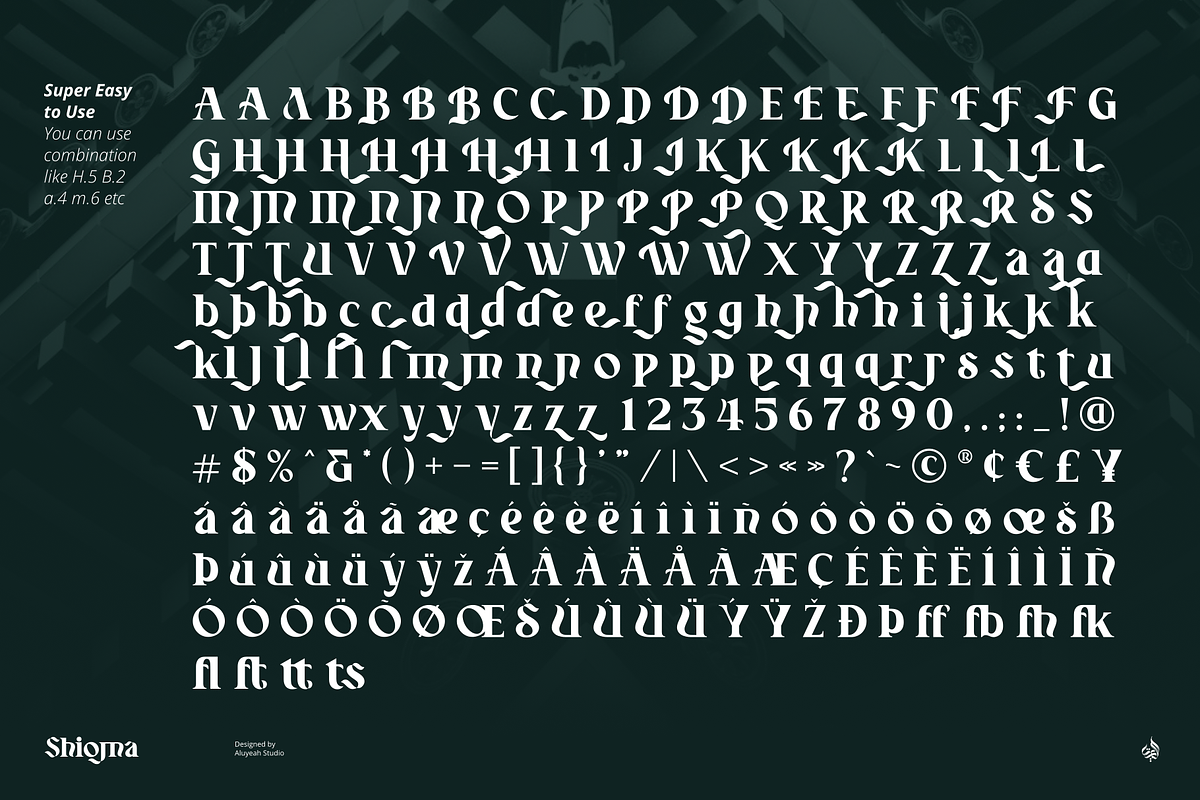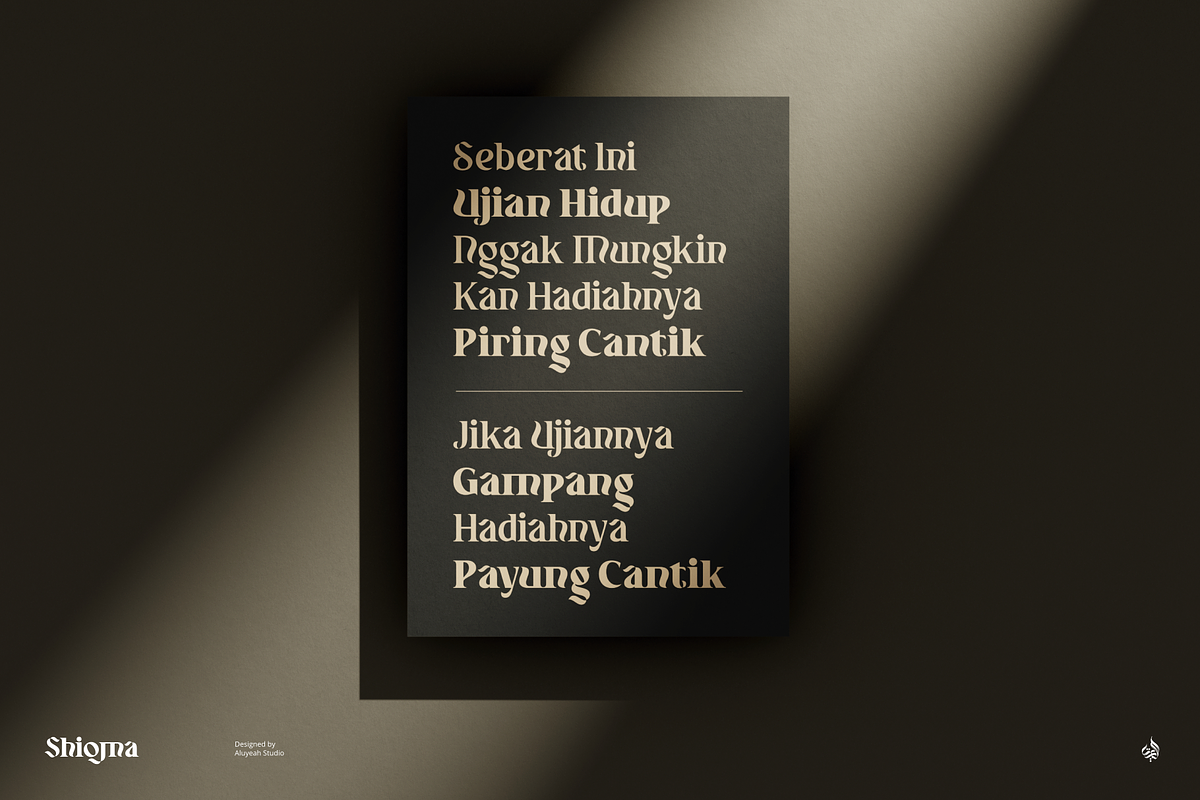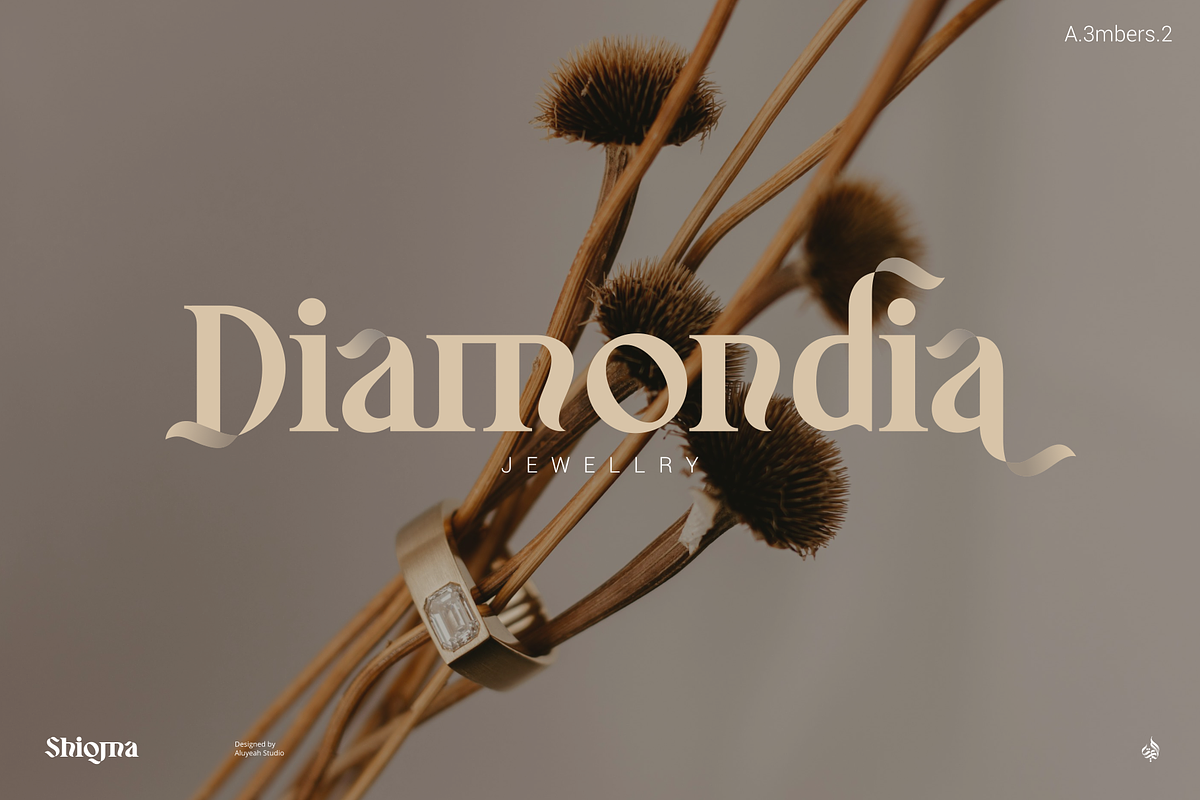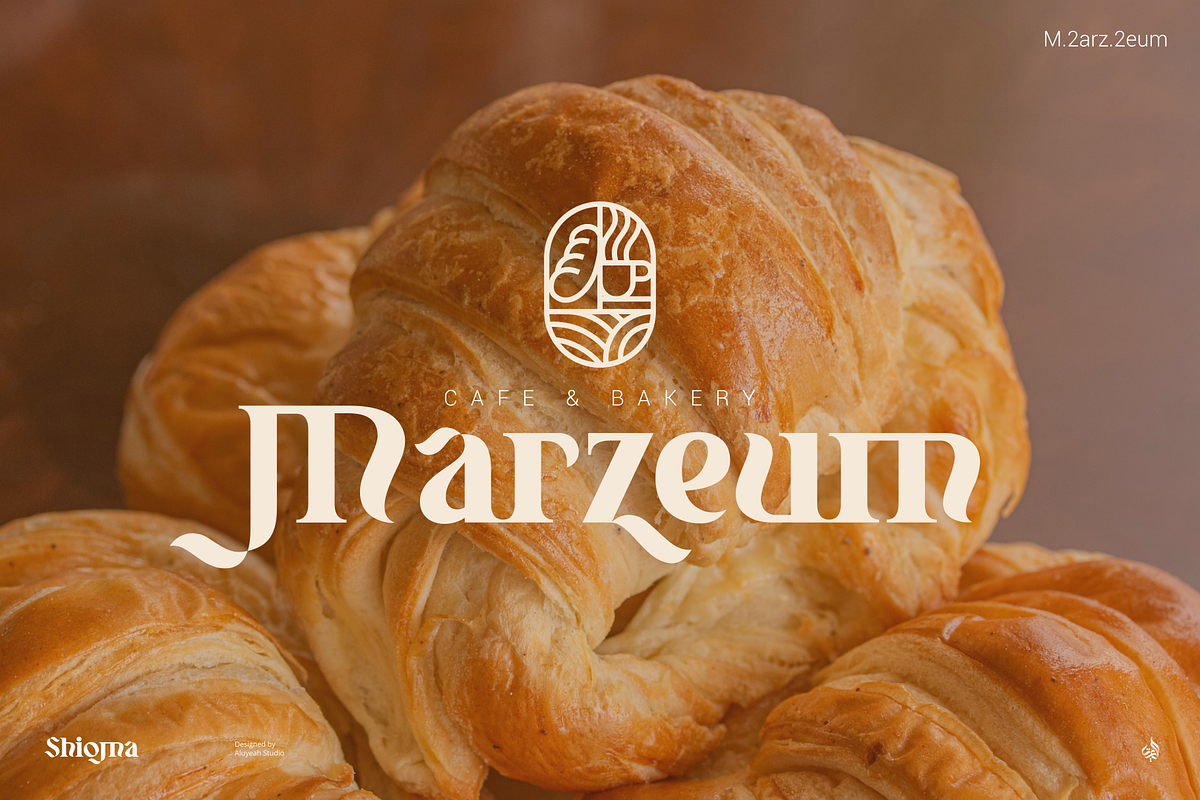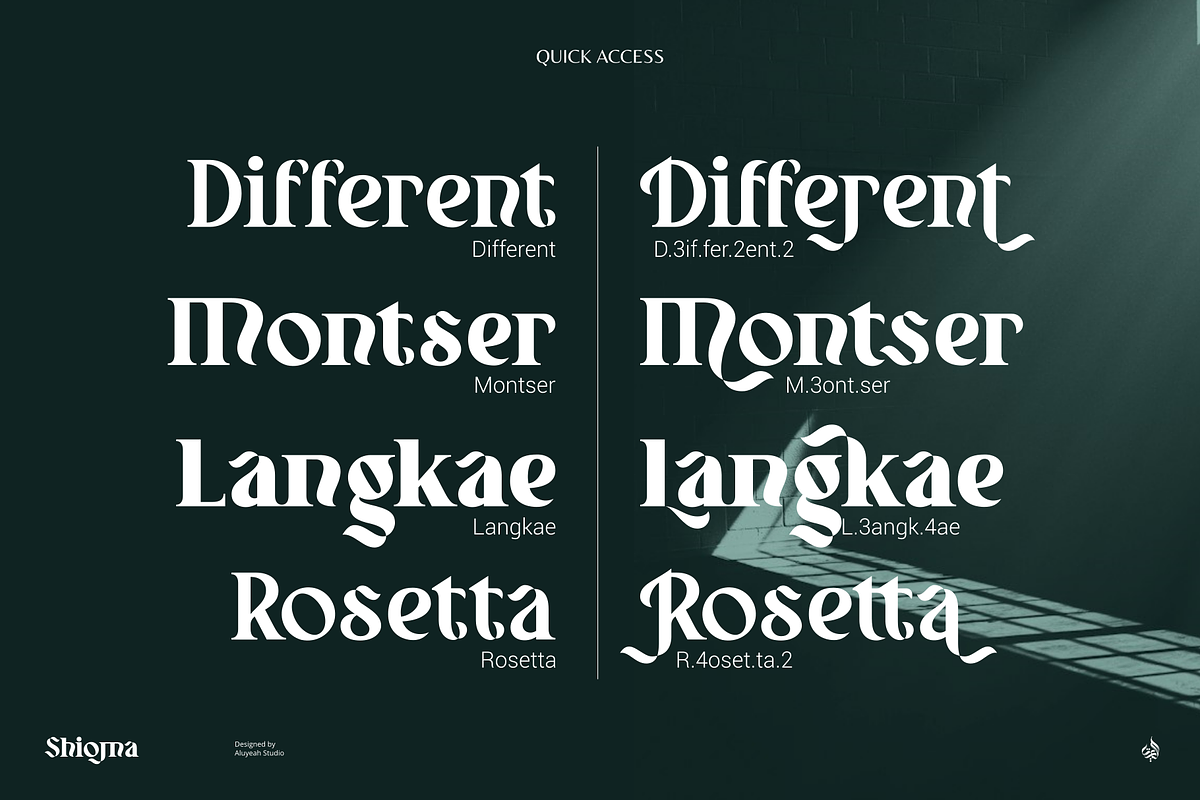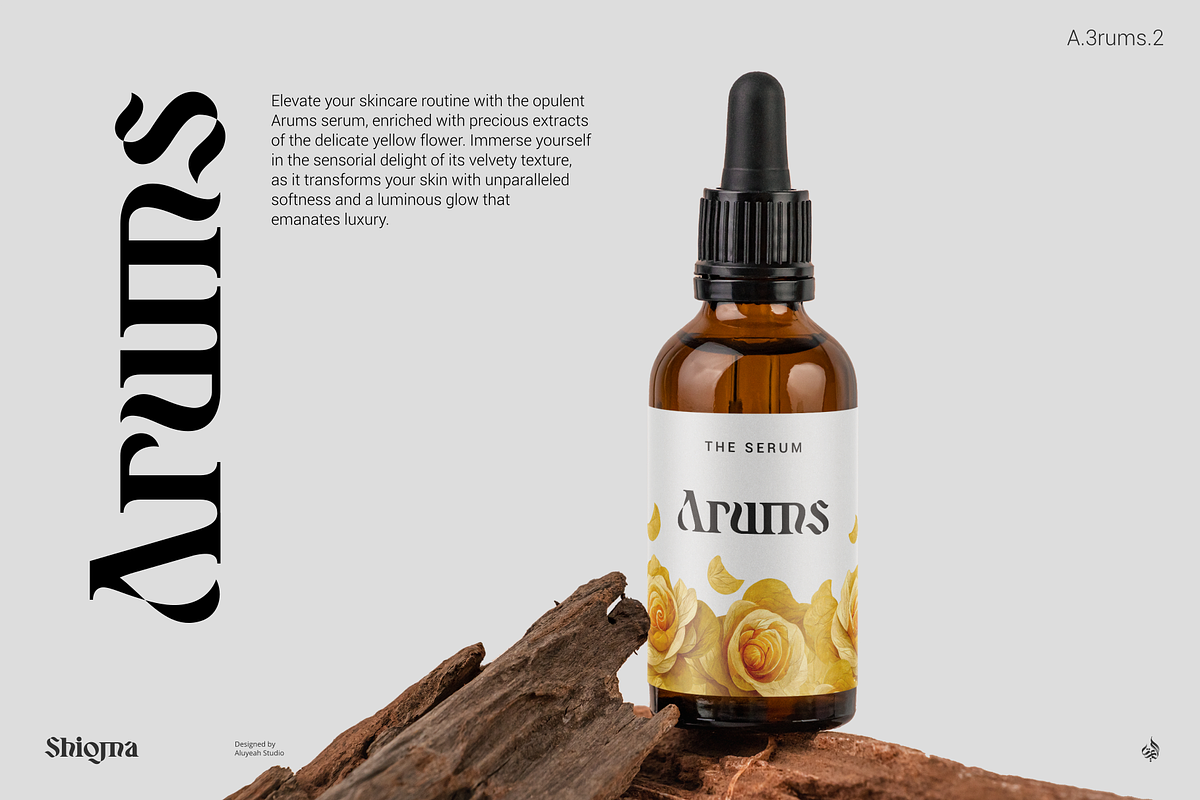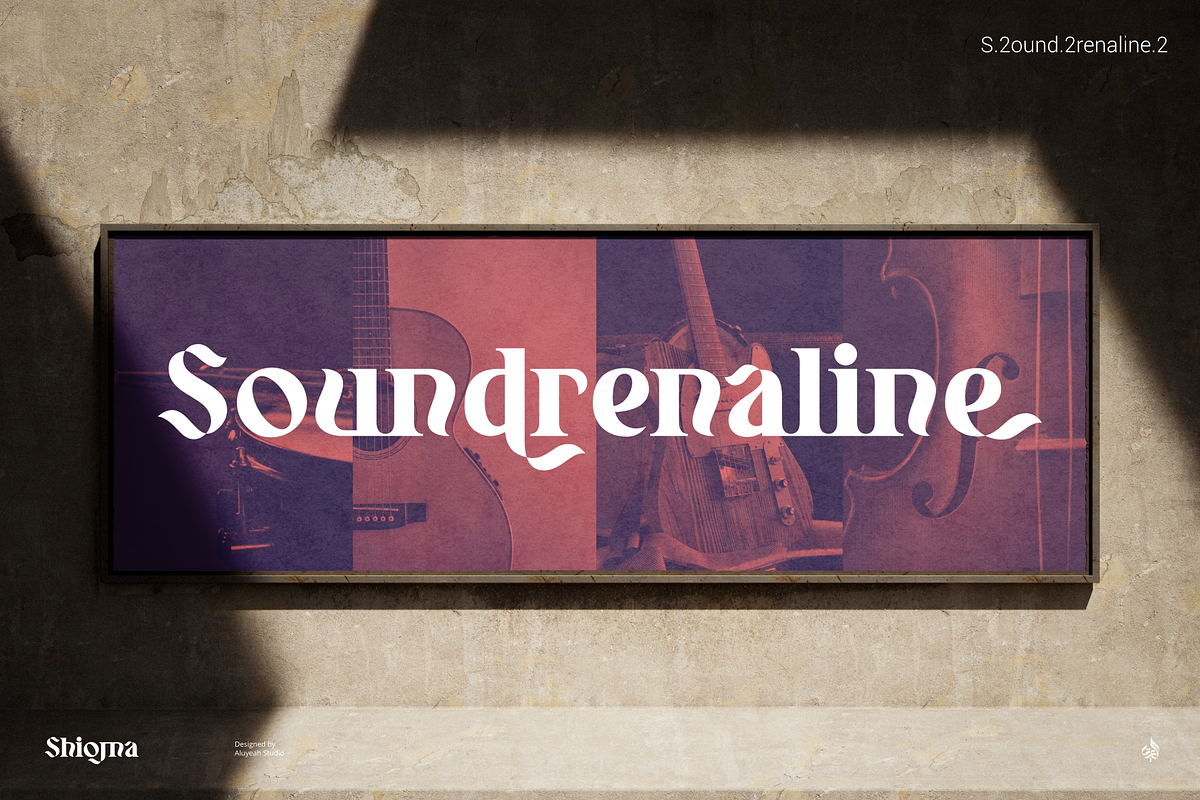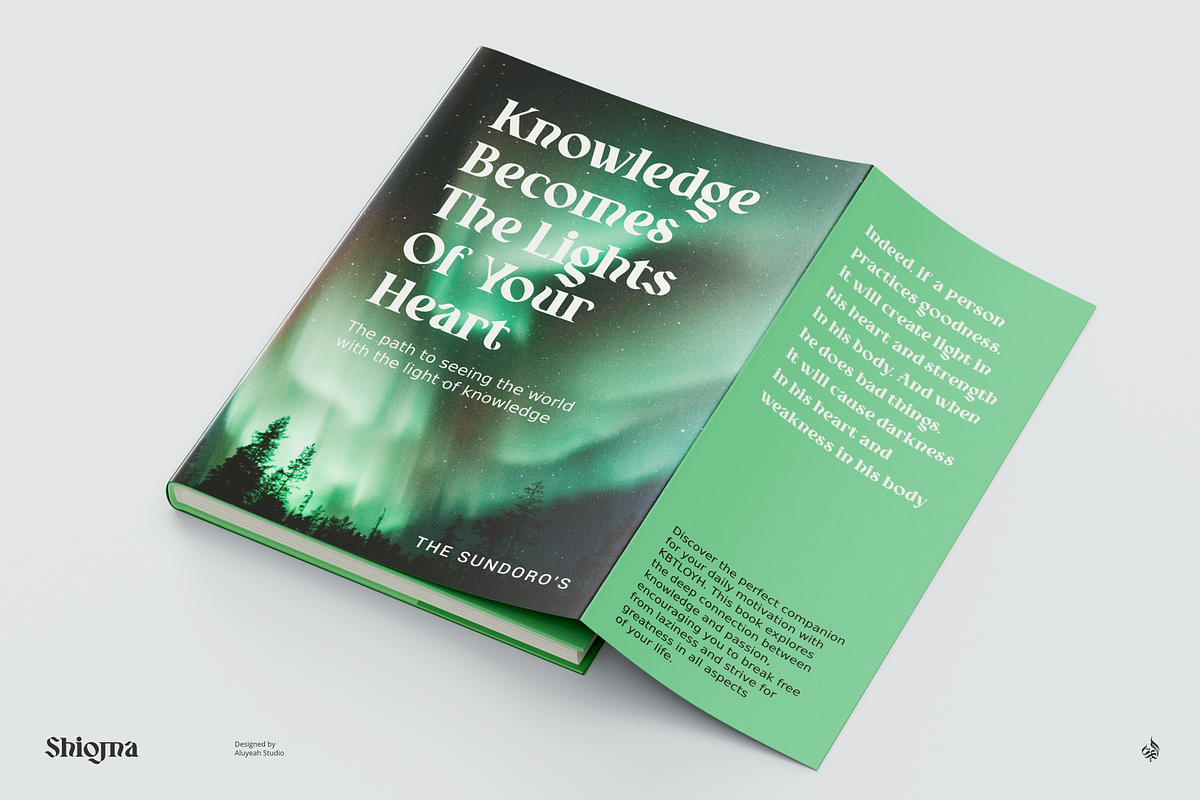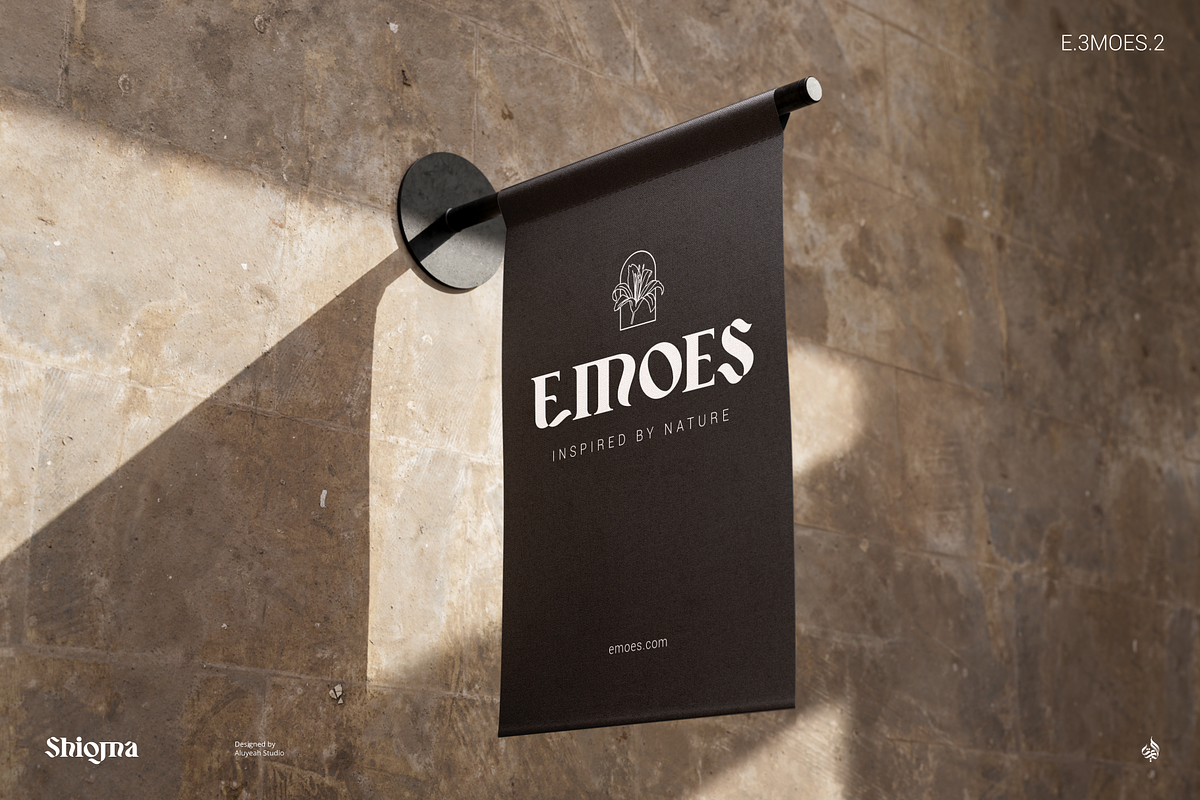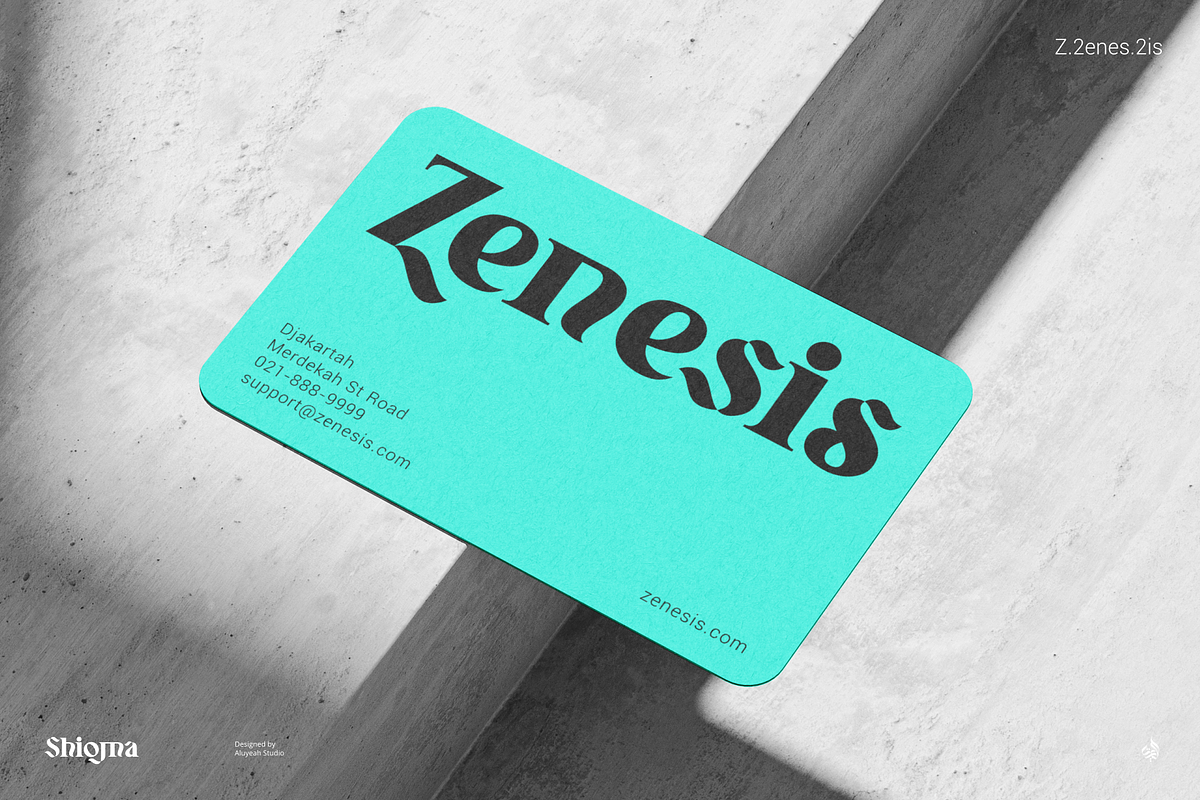
Shioma
Introducing Shioma - a Twisted and Strong Display Font!
Elevate your design projects with Shioma, a standout typeface featuring a twisted and strong display font that is sure to capture attention. With its design inspired by ink strokes that form a twisted shape, Shioma offers a wide range of 270+ glyphs and 90+ alternates and ligatures for added creativity. The quick access feature makes it easy to use, and the 3 weights available offers versatility and flexibility for all your design needs.
- OpenType support
- Multilingual support (67 languages)
- Super Easy to Use alternates - You can easily call alternates using quick access combination like A.2 A.3 a.2 a.3 etc.
To get results like the preview, in the design software you use, select this font then just write S.2hiom.2a